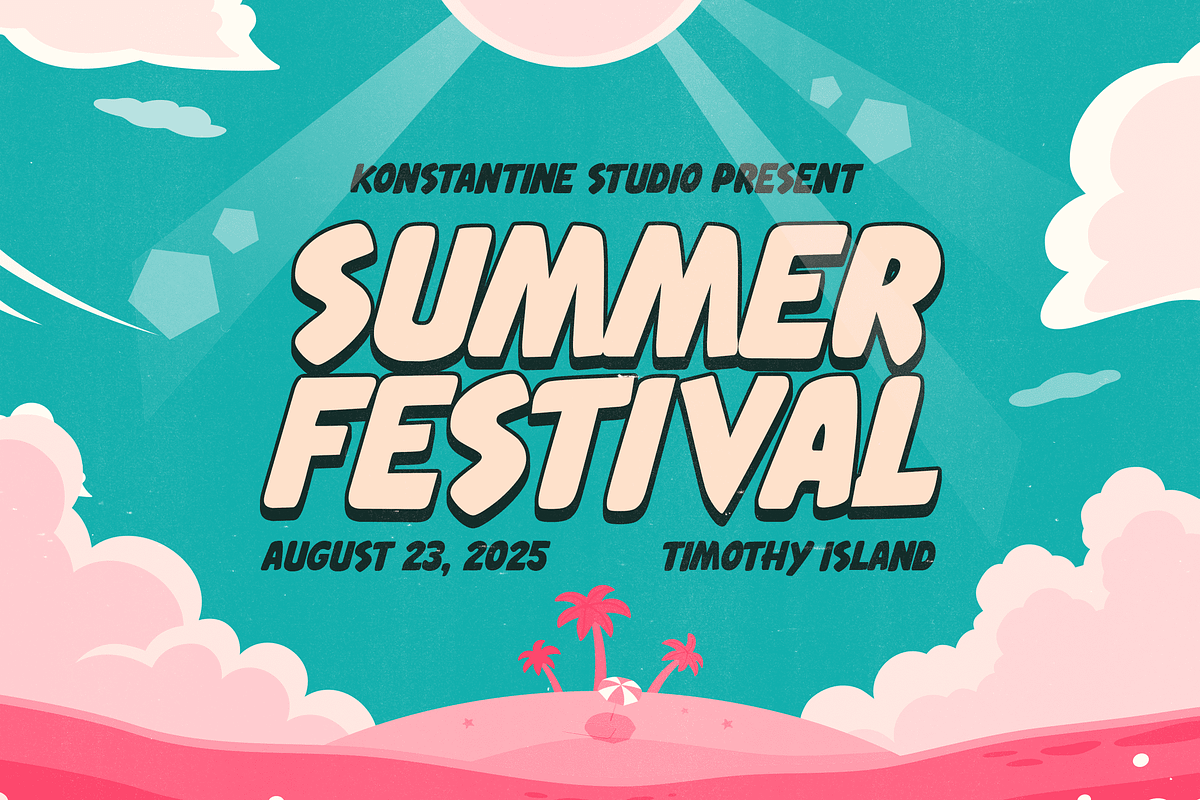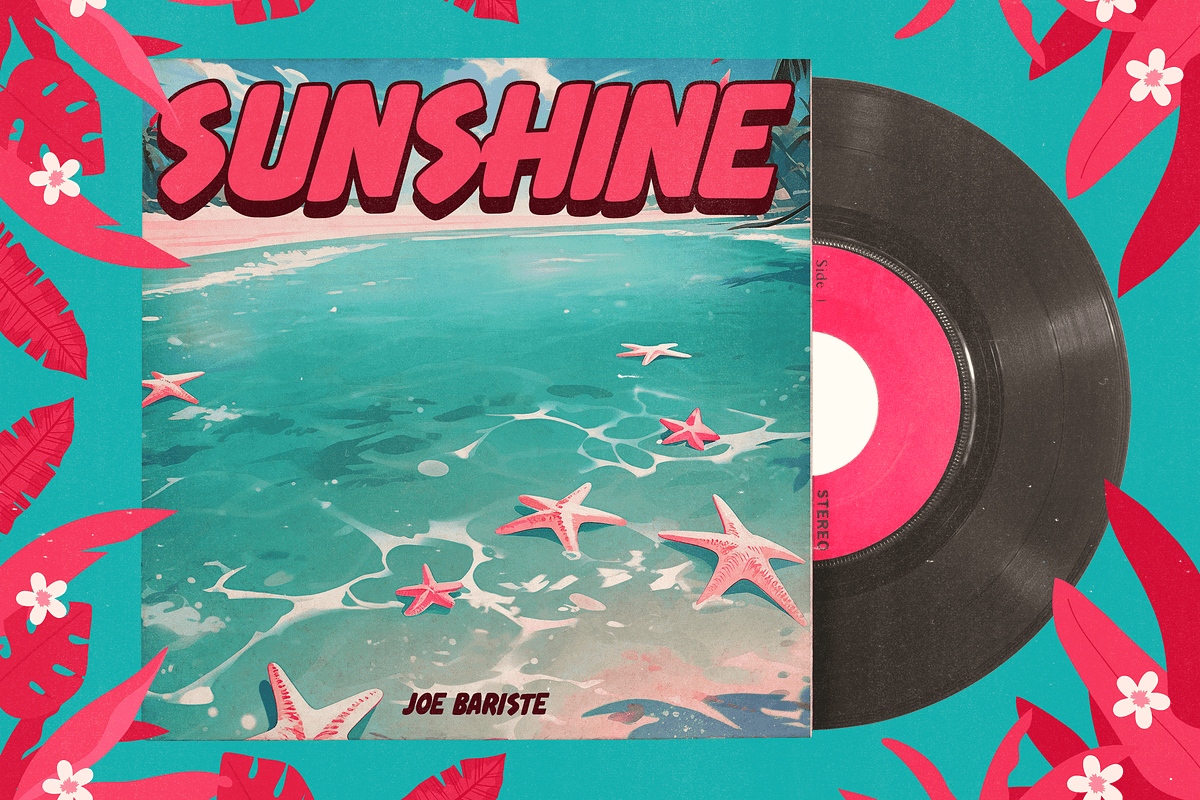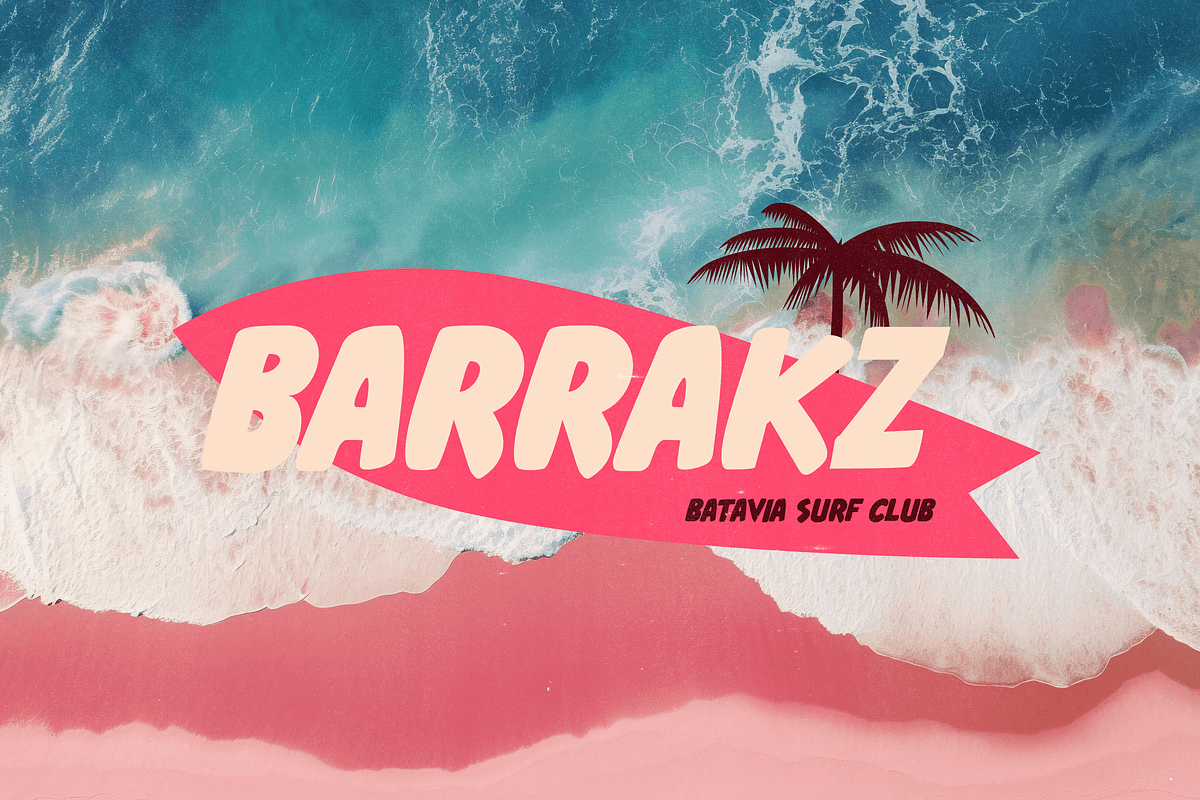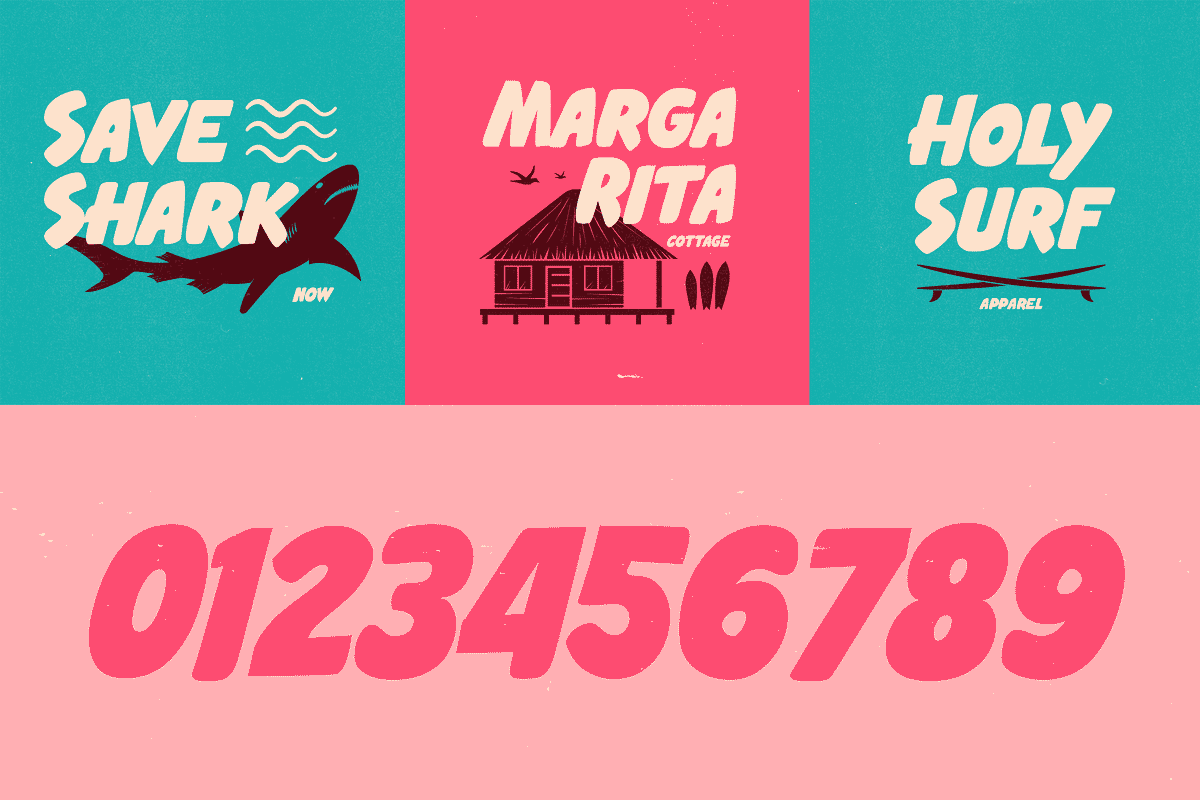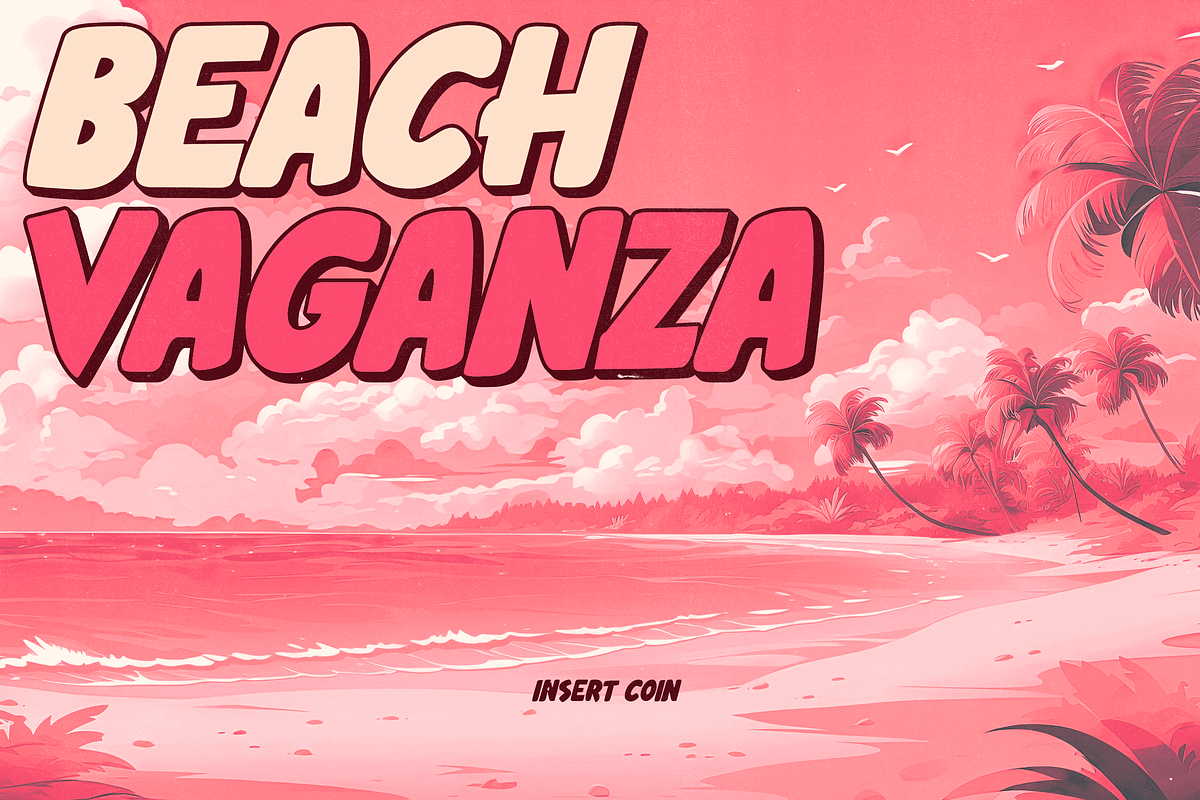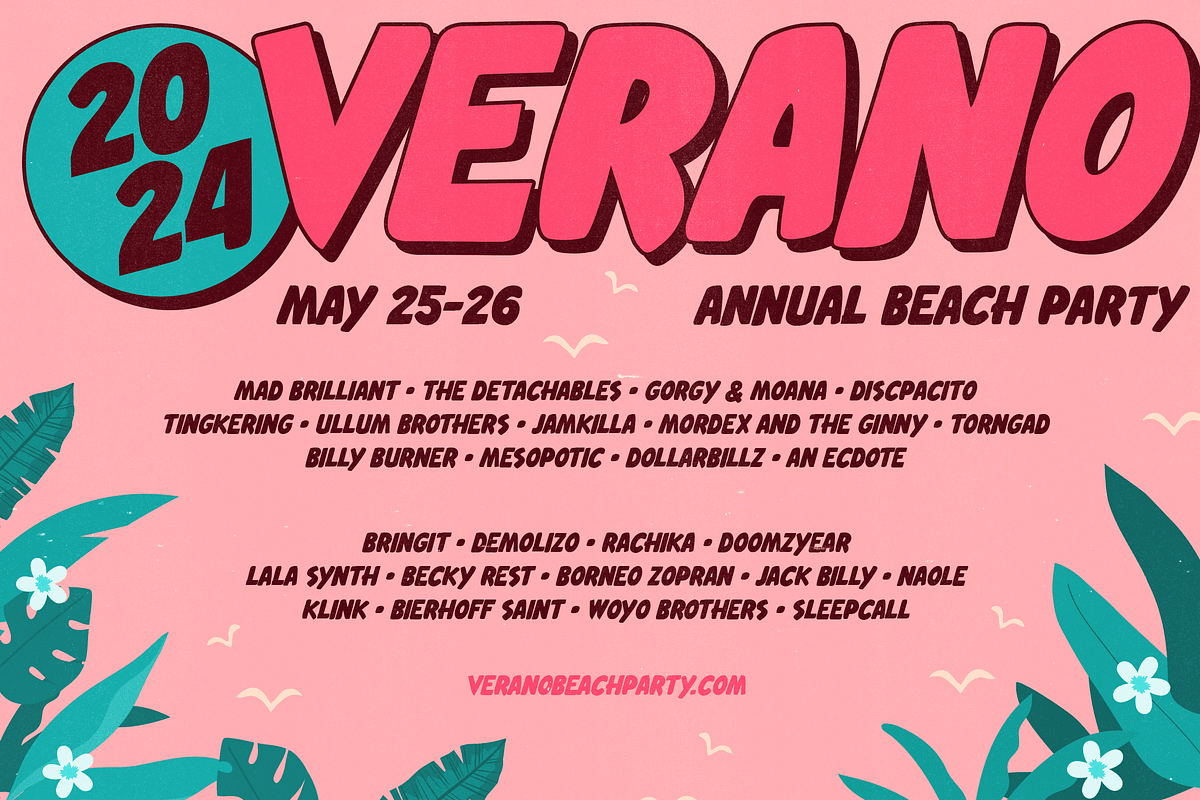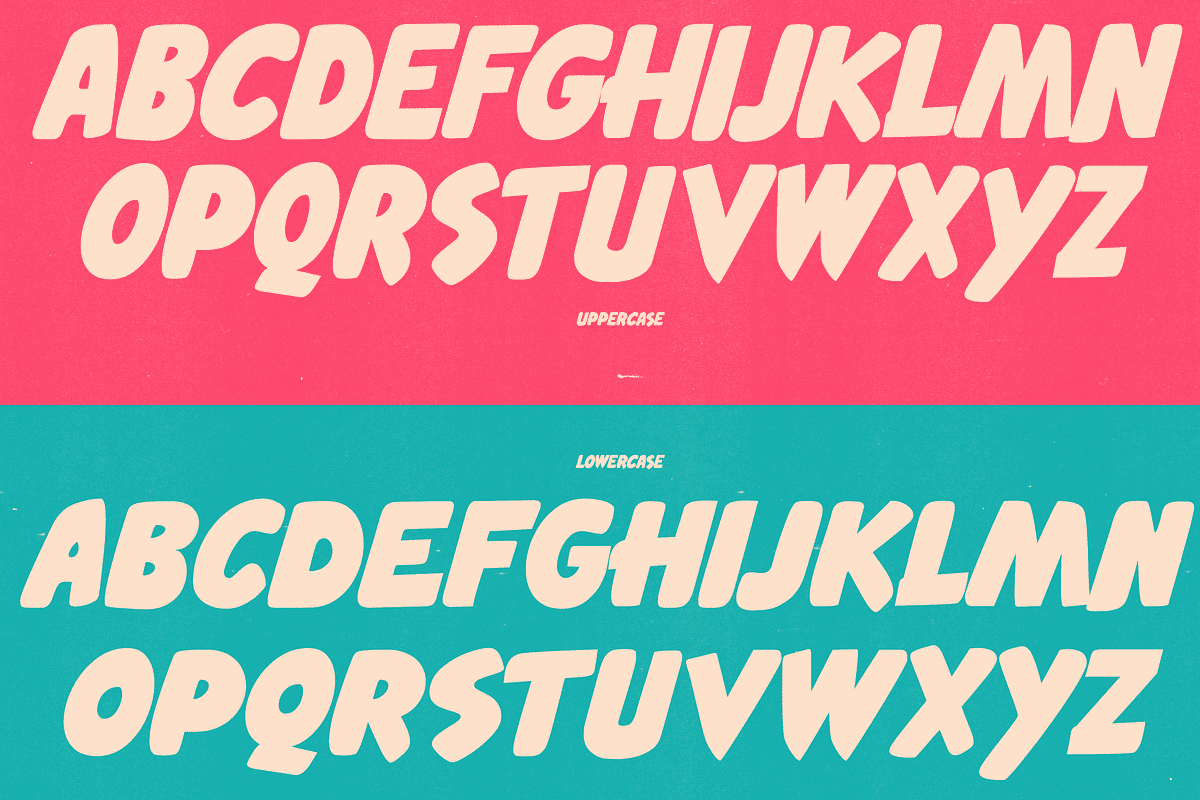
Ageska - Tropical Bold Fonts
Dive into a world where typography meets the tropics with Ageska, the playful font that encapsulates the essence of sun-soaked beaches, bohemian retreats, and the carefree spirit of summer.
Ageska is bold and vibrant characters are more than just letters – they're a visual journey through the lush landscapes of tropical paradises. Picture your words adorned with palm fronds, sun-kissed hues, and the laid-back vibe of a beachside resort.
Whether you're crafting a logo for a seaside retreat, designing promotional material for a beachwear brand, or creating content for a cozy cottage getaway, Ageska is your passport to capturing the heart and soul of coastal living. Infuse your projects with the carefree energy of sandy toes, windblown hair, and the undeniable allure of tropical aesthetics.
Don't just communicate; captivate. Transform your visuals with Ageska - where tropical vibes meet bold typography.